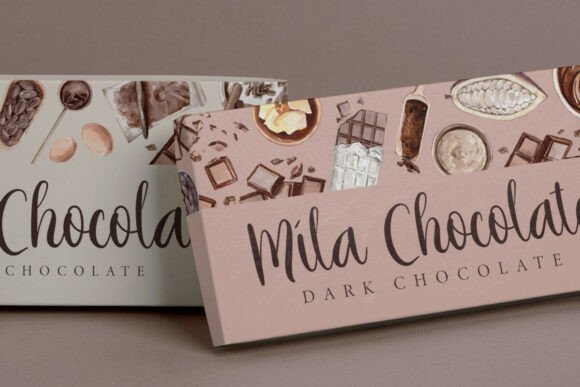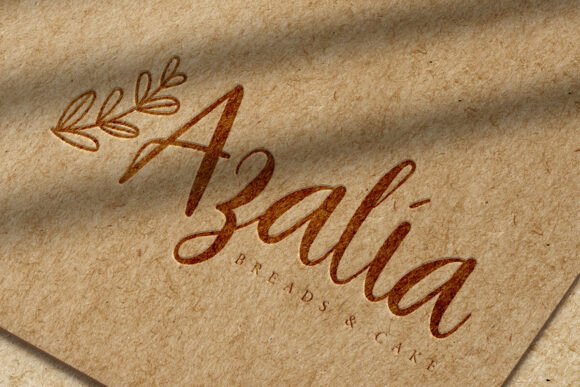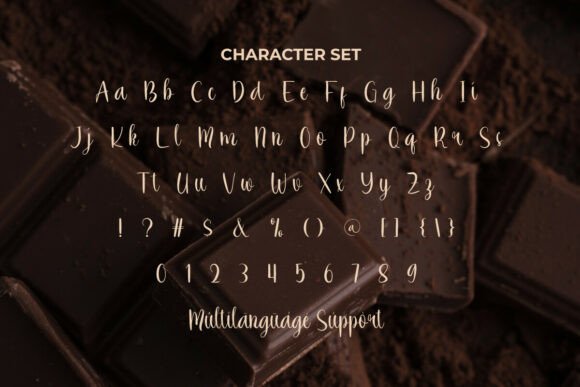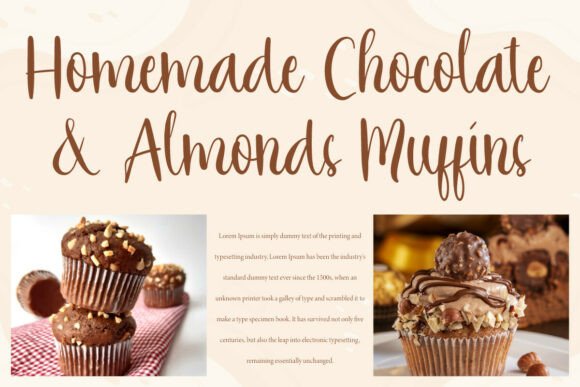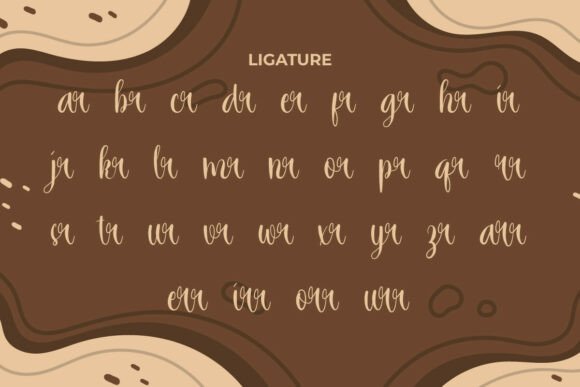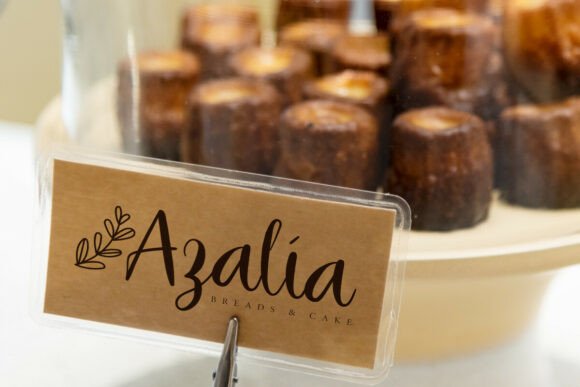
Introducing Choco Brewing Font: The Perfect Blend of Style and Warmth
Are you looking for a font that captures the essence of warmth, comfort, and artisanal goods? Look no further than the Choco Brewing font, a deliciously smooth and casual script font that is sure to elevate your design projects. With its friendly, flowing connections and elegant yet approachable calligraphy style, this font is perfect for designers aiming for a comforting, handcrafted, and effortlessly stylish script aesthetic.
A Font that Embodies Warmth and Comfort
The Choco Brewing font features rounded, gentle curves and a medium weight that gives it a clean, highly legible appearance. Its brown color palette, reminiscent of rich chocolate, adds to the font’s warm and inviting feel. This makes it an ideal choice for branding related to food, beverages, and cozy lifestyle products. Whether you’re designing product labels, cafe menus, recipe cards, or social media posts, the Choco Brewing font is sure to bring a personal, inviting, and sweet touch to your creations.
The Choco Brewing font is a versatile typeface that can be used for a diverse range of creative projects. Designers and crafters can use this font to add a touch of warmth and personality to their work. Here are some ideas for using the Choco Brewing font:
- Bakery branding: Use the Choco Brewing font to create eye-catching logos, packaging, and marketing materials for bakeries and dessert shops.
- Café menus: Add a touch of elegance and sophistication to your café menus with the Choco Brewing font.
- Dessert packaging: Make your dessert packaging stand out with the Choco Brewing font, perfect for labeling cakes, cookies, and other sweet treats.
- Social media content: Use the Choco Brewing font to create engaging social media posts, stories, and graphics that showcase your brand’s personality.
- Posters and flyers: Create eye-catching posters and flyers for events, promotions, and product launches with the Choco Brewing font.
Key Features of the Choco Brewing Font
The Choco Brewing font has several key features that make it an ideal choice for designers and crafters:
- Elegant yet approachable calligraphy style: The Choco Brewing font features a beautiful, flowing calligraphy style that is both elegant and approachable.
- Rounded, gentle curves: The font’s rounded curves give it a soft, warm feel that’s perfect for creating a cozy and inviting atmosphere.
- Medium weight: The Choco Brewing font has a medium weight that makes it highly legible, even at small sizes.
- Brown color palette: The font’s brown color palette adds to its warm and inviting feel, making it perfect for branding related to food, beverages, and cozy lifestyle products.
Why Choose the Choco Brewing Font?
There are many reasons why designers and crafters should choose the Choco Brewing font for their projects:
- Unique and eye-catching: The Choco Brewing font is a unique and eye-catching typeface that will help your designs stand out from the crowd.
- Versatile: The font can be used for a wide range of creative projects, from bakery branding to social media content.
- Easy to read: The Choco Brewing font is highly legible, even at small sizes, making it perfect for use on product labels, menus, and other materials.
- Warm and inviting: The font’s warm and inviting feel makes it perfect for creating a cozy and welcoming atmosphere in your designs.
In conclusion, the Choco Brewing font is a deliciously smooth and casual script font that is perfect for designers and crafters looking to add a touch of warmth and personality to their projects. With its elegant yet approachable calligraphy style, rounded curves, and medium weight, this font is sure to elevate your designs and help you achieve a comforting, handcrafted, and effortlessly stylish script aesthetic. So why wait? Try the Choco Brewing font today and see the difference it can make in your designs!